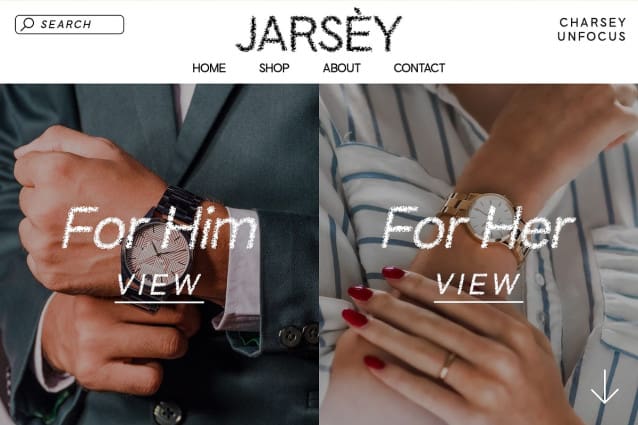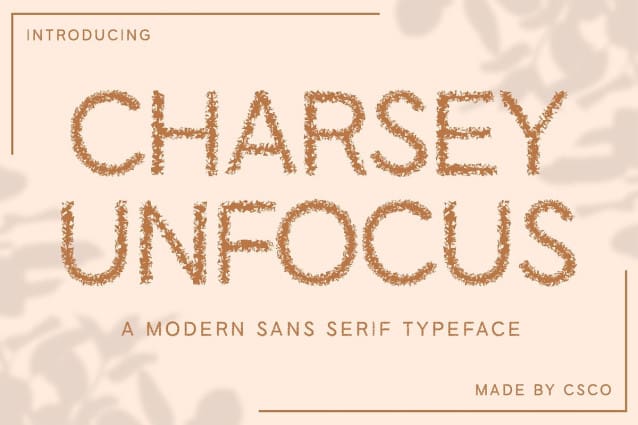
Charsey Unfocus Font
Charsey Unfocus Font is a modern sans-serif font featuring clean, sleek lines and an unfocused effect. This combination brings a sophisticated and innovative touch to your design projects.
With its sharp, modern lines and subtle blur effect, Charsey Unfocus adds a contemporary and elegant feel to any design. The clean aesthetics combined with the unique unfocused effect create a visually appealing and dynamic look.
Ideal for branding, editorial layouts, and digital media, Charsey Unfocus enhances your designs with its sophisticated and modern style. Whether used for logos, magazine spreads, or web designs, this font brings a sense of innovation and refinement to your projects.
Choose Charsey Unfocus to elevate your designs with a modern sans-serif font that combines clean lines and an unfocused effect. This font ensures your projects achieve a sleek, sophisticated, and contemporary look, making them stand out with a unique and artistic appeal.